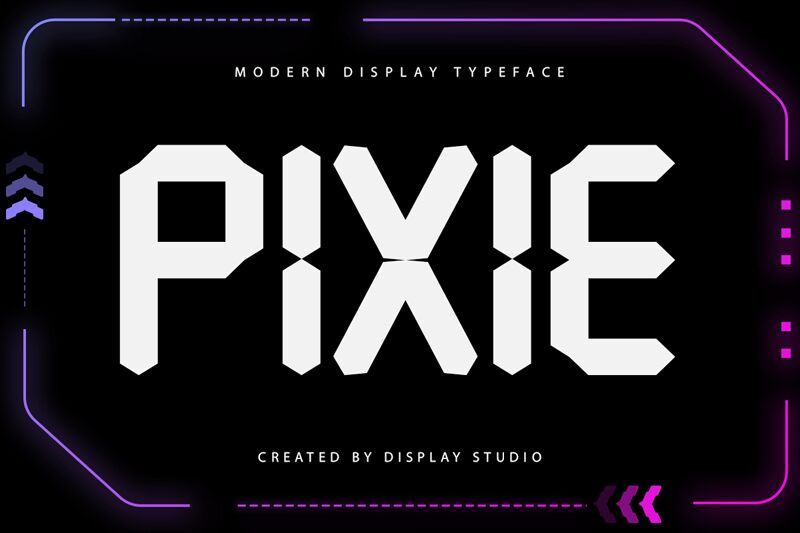
PIXIE
PIXIE, the semi-condensed display font from Display Studio, is a futuristic and bold choice for any project that needs a touch of creativity and tech-savvy flair. With its sharp edges and sleek design, PIXIE is perfect for branding projects, including logos and packaging designs. It also works well in digital designs such as web graphics or app interfaces thanks to its techno style. These features make it suitable for projects like cyberpunk video games or science fiction movie titles. PIXIE's unique look will make your work stand out from the crowd while still being easily readable.